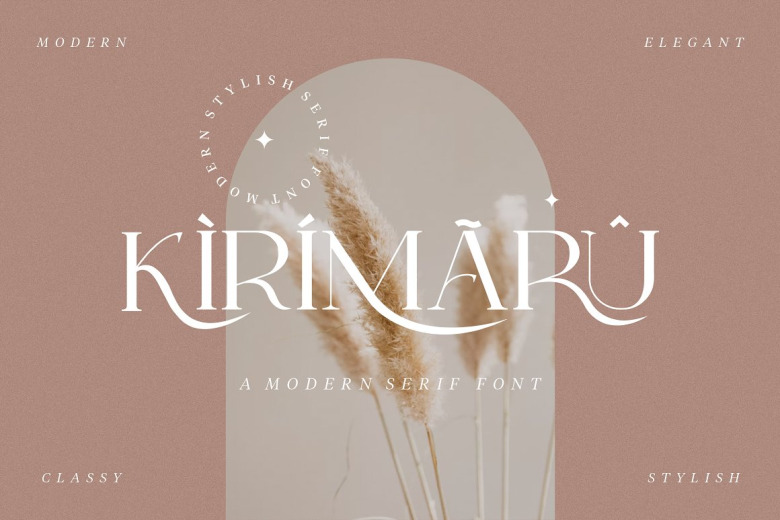
Kirimaru Font
Kirimaru Font is a beautiful serif font. This is a all-caps serif while classic elegance is still maintained. This typeface has been made carefully to make sure its premium quality and luxury feel. The combination with the width of each letter forms a modern feel and is suitable for various magazines, logos, branding, photography, invitations, wedding invitations, quotes, blog headers, posters, advertisements, postcards, books, websites, etc.
Kirimaru Serif Font